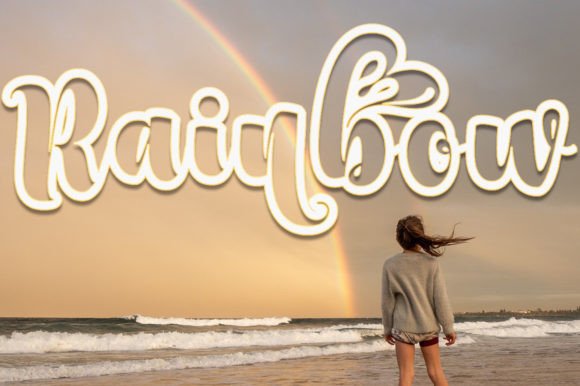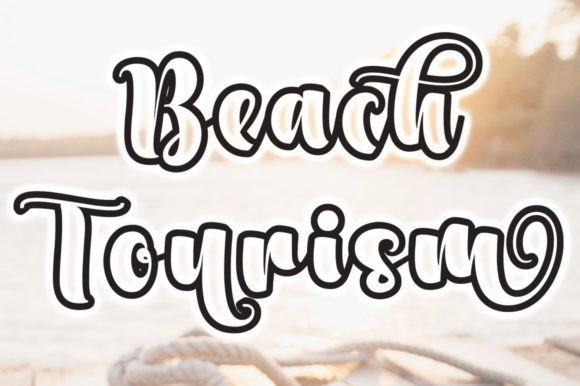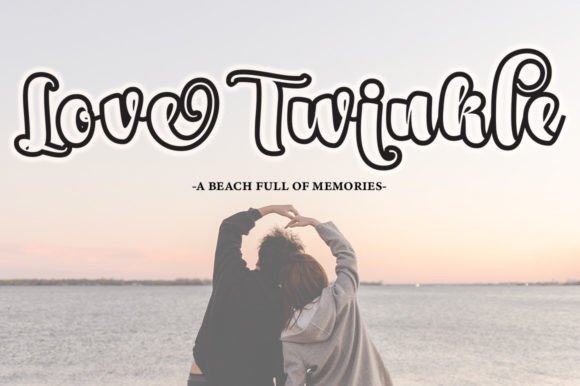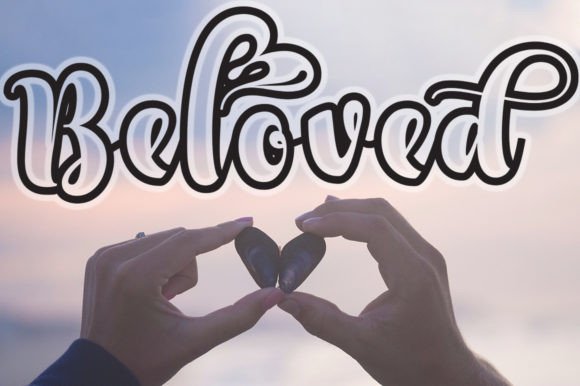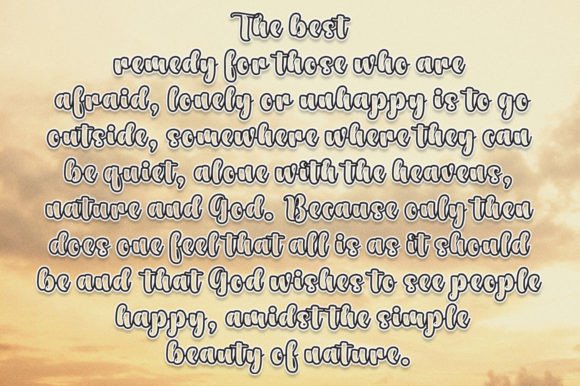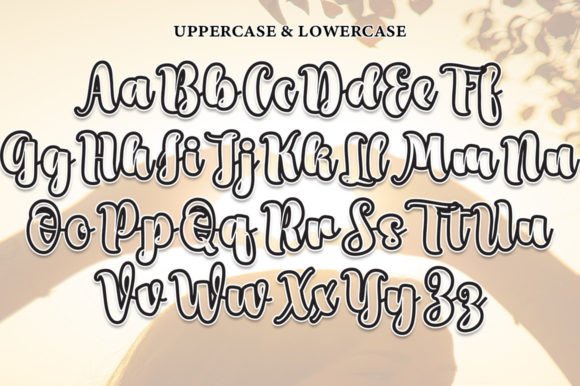
Introducing Glow Font: The Ultimate Handwriting Font for Your Creative Projects
Are you a designer, crafter, or DIY enthusiast looking for a font that can add a touch of warmth and personality to your projects? Look no further than Glow Font, a beautiful and versatile handwriting font that’s perfect for a wide range of creative applications. In this article, we’ll take a closer look at the features and benefits of Glow Font, and explore how it can help you bring your project ideas to life.
A Cute, Versatile, and Flexible Handwriting Font
Glow Font is a carefully crafted handwriting font that’s designed to be both cute and versatile. Its warm, romantic, and jovial style makes it perfect for a variety of projects, from wedding invitations and greeting cards to craft tutorials and social media graphics. Whether you’re looking to add a personal touch to your designs or create a cohesive brand identity, Glow Font is the perfect choice.
PUA Coded for Easy Access to Glyphs and Swashes
One of the standout features of Glow Font is its PUA (Private Use Area) coding. This means that you have easy access to all glyphs and swashes, making it simple to customize your text and add unique flourishes to your designs. With PUA coding, you can easily insert special characters, ligatures, and other decorative elements to give your text a personal touch.
Complete with Language Support
Glow Font is not just a beautiful font, but also a practical one. It comes complete with language support, making it suitable for use in a wide range of languages and regions. Whether you’re designing for a global audience or simply want to create multilingual content, Glow Font has got you covered.
Glow Font is a dream come true for designers and crafters who want to add a personal touch to their projects. Its flexibility and versatility make it perfect for a wide range of applications, from digital design to handcrafted projects. Whether you’re creating social media graphics, blog posts, or handmade crafts, Glow Font is the perfect choice.
In conclusion, Glow Font is a beautiful and versatile handwriting font that’s perfect for designers, crafters, and DIY enthusiasts. Its warm, romantic, and jovial style makes it perfect for a wide range of projects, from wedding invitations and greeting cards to craft tutorials and social media graphics. With its PUA coding, language support, and flexibility, Glow Font is the ultimate font for anyone looking to add a personal touch to their designs. So why wait? Download Glow Font today and start bringing your project ideas to life!